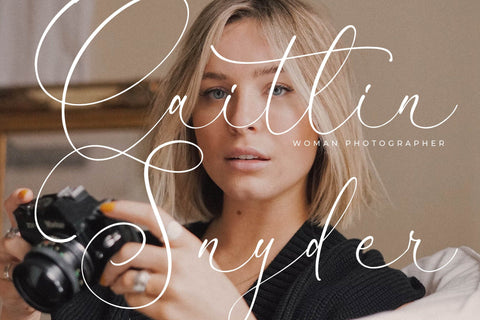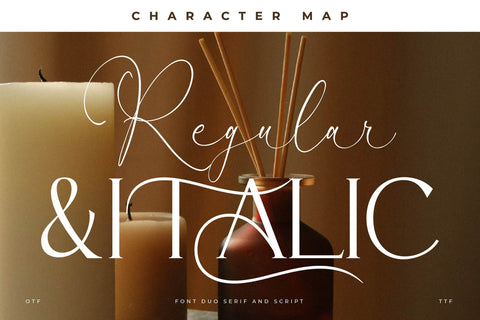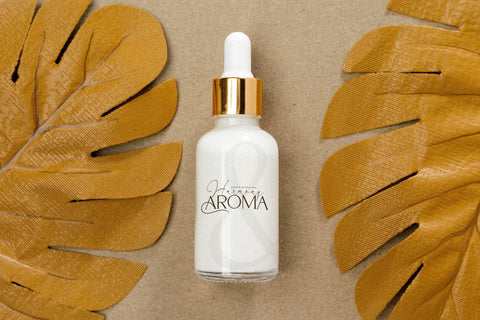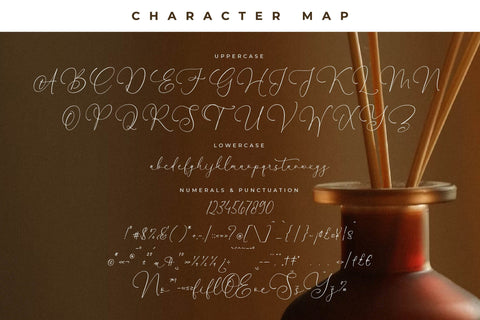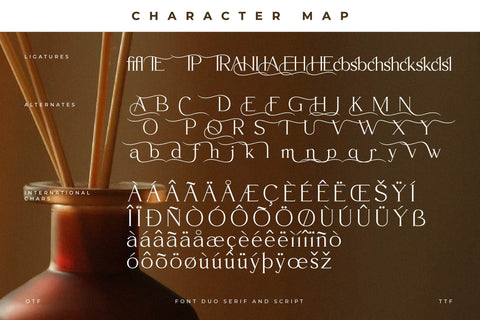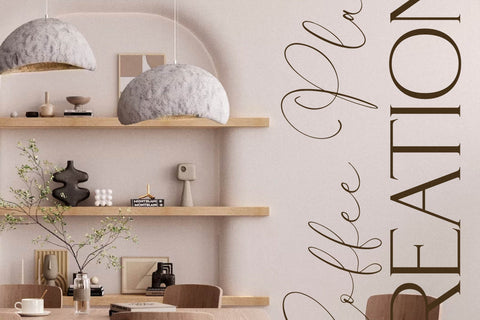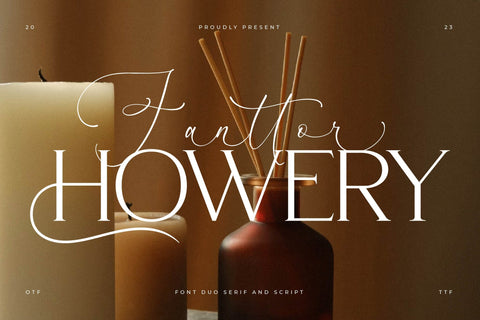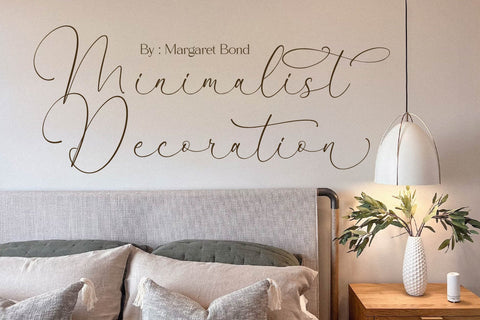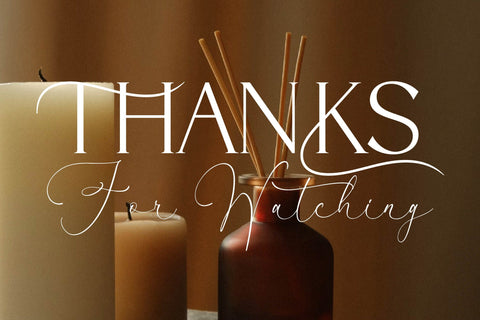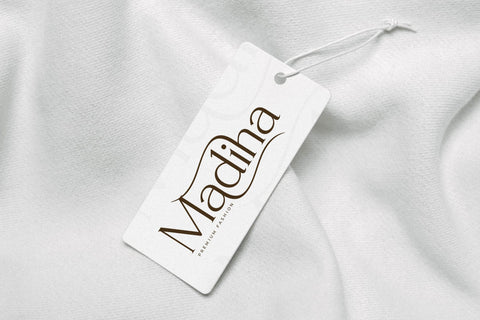
Fanttor Howery Font Duo
Proudly present Fanttor Howery Font Duo , created by Storytype,
A serif and script typeface that has own unique style & modern look.